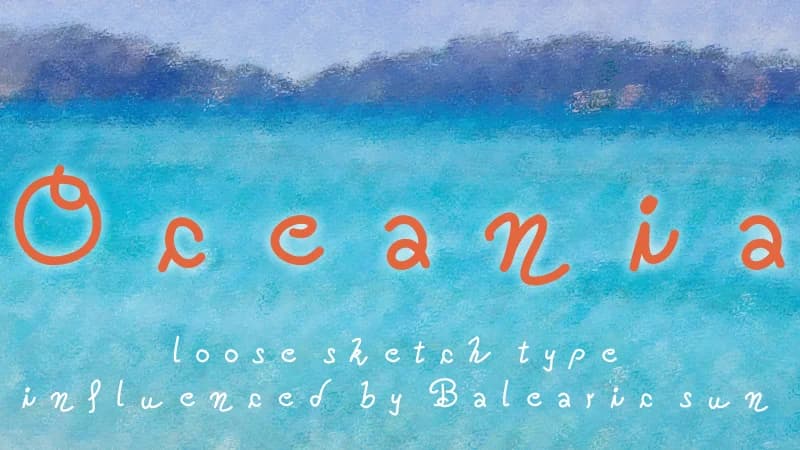
About Oceania Font
Oceania Font by Kreativ is a loose, flowing handwritten script that authentically captures the relaxed elegance and carefree spirit of Mediterranean coastal environments and island living. Inspired by the distinctive Balearic weather patterns, ocean breezes, and island aesthetic qualities, this typeface delivers a naturally warm, sun-drenched visual quality to your designs without feeling overworked. The informal letterforms skillfully balance approachable charm with refined execution, visual consistency, and careful attention to detail, making it suitable for both casual creative applications and more sophisticated professional contexts.
This versatile script particularly excels in travel and leisure-focused design contexts where personality and visual authenticity truly matter. It's an excellent choice for vacation rental website headers and booking page design, seaside resort branding materials, destination wedding invitations and complete stationery suites, boutique hotel signage, and charming beachside cafΓ© menus. The typeface also works beautifully for seasonal holiday campaign graphics, travel blog headers, and summer event promotional designs. Whether you're creating content celebrating island getaways, coastal destination marketing, or travel-focused social media content, Oceania delivers that coveted escape-destination feeling that deeply resonates with adventure-seeking audiences exploring their next vacation.
Oceania Font is a script font that shines as a display or heading face. Pair it with a clean sans-serif or serif font for body text β the contrast creates a clear hierarchy while the two styles stay balanced and easy to read.
Oceania Font
by Kreativ